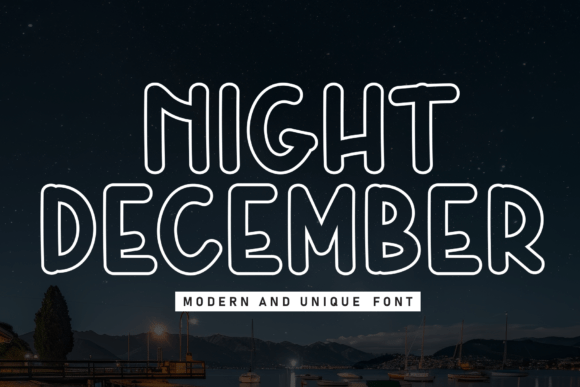
Night December Font: A Modern Outlined Sans-Serif for Seasonal Promotions
In the world of typography, fonts play a crucial role in conveying the tone and personality of a brand or design. For winter-themed branding, seasonal promotions, or minimalist product packaging, a font that exudes a clean and casual feel is essential. This is where Night December Font comes into play – a modern outlined sans-serif font that has been gaining popularity for its unique charm and clarity.
What is Night December Font?
Night December Font is a contemporary outlined sans-serif font designed to provide a soft and casual feel to designs. Its geometric structure and soft corners make it an excellent choice for creating winter-themed branding, seasonal promotions, or minimalist product packaging. The font’s outlined design gives it a distinctive look that works best in large titles and headlines, evoking a soft nighttime vibe without feeling too festive.
Key Features of Night December Font
- Modern Outlined Design: Night December Font boasts a modern outlined design that sets it apart from traditional fonts. Its soft and delicate lines create a charming and elegant look.
- Clean and Casual Feel: The font’s clean and casual feel makes it perfect for a wide range of design applications, from winter-themed branding to minimalist product packaging.
- Geometric Structure: The font’s geometric structure provides a sense of stability and balance, making it easy to read and understand.
- Soft Corners: The soft corners of Night December Font add a touch of warmth and friendliness, making it an excellent choice for designs that require a personal touch.
Use Cases for Night December Font
Night December Font is a versatile font that can be used in various design applications. Here are some of the most popular use cases:
- Winter-Themed Branding: The font’s winter-inspired design makes it an excellent choice for winter-themed branding, including logos, packaging, and advertising materials.
- Seasonal Promotions: Night December Font is perfect for seasonal promotions, such as holiday sales, Christmas markets, or winter-themed events.
- Minimalist Product Packaging: The font’s clean and casual feel makes it an excellent choice for minimalist product packaging, adding a touch of elegance and sophistication to products.
- Headlines and Titles: Night December Font works best in large titles and headlines, creating a soft nighttime vibe that grabs attention and adds visual interest.
Benefits of Using Night December Font
Using Night December Font offers several benefits, including:
- Unique and Memorable: The font’s outlined design and soft corners make it a unique and memorable choice for designs.
- Versatile: Night December Font can be used in various design applications, from winter-themed branding to minimalist product packaging.
- Easy to Read: The font’s clean and geometric structure makes it easy to read and understand, even in large titles and headlines.
- Balances Charm and Clarity: Night December Font balances charm and clarity in a contemporary way, making it an excellent choice for designs that require a personal touch.
Tips for Using Night December Font Effectively
To get the most out of Night December Font, here are some tips to keep in mind:
- Use in Large Titles and Headlines: Night December Font works best in large titles and headlines, where its outlined design and soft corners can be fully appreciated.
- Pair with Simple Backgrounds: The font’s delicate lines and soft corners can get lost in busy backgrounds. Pair it with simple backgrounds to make it stand out.
- Experiment with Colors: Night December Font can be used in various colors, from bright and bold to soft and pastel. Experiment with different colors to find the perfect fit for your design.
- Don’t Overuse: While Night December Font is a beautiful font, overusing it can make your design look cluttered and overwhelming. Use it sparingly to create visual interest and add a touch of elegance.
Night December Font is a modern outlined sans-serif font that offers a unique and memorable way to add a touch of elegance and sophistication to designs. Its clean and casual feel, geometric structure, and soft corners make it an excellent choice for winter-themed branding, seasonal promotions, or minimalist product packaging. By following the tips outlined above, you can use Night December Font effectively and create designs that are both visually appealing and effective.
FAQs About Night December Font
- What is Night December Font? Night December Font is a modern outlined sans-serif font designed for winter-themed branding, seasonal promotions, or minimalist product packaging.
- What are the key features of Night December Font? The font’s key features include a modern outlined design, clean and casual feel, geometric structure, and soft corners.
- What are some popular use cases for Night December Font? Popular use cases include winter-themed branding, seasonal promotions, minimalist product packaging, and headlines and titles.
- How can I use Night December Font effectively? Use the font in large titles and headlines, pair it with simple backgrounds, experiment with colors, and don’t overuse it to create visual interest and add a touch of elegance.